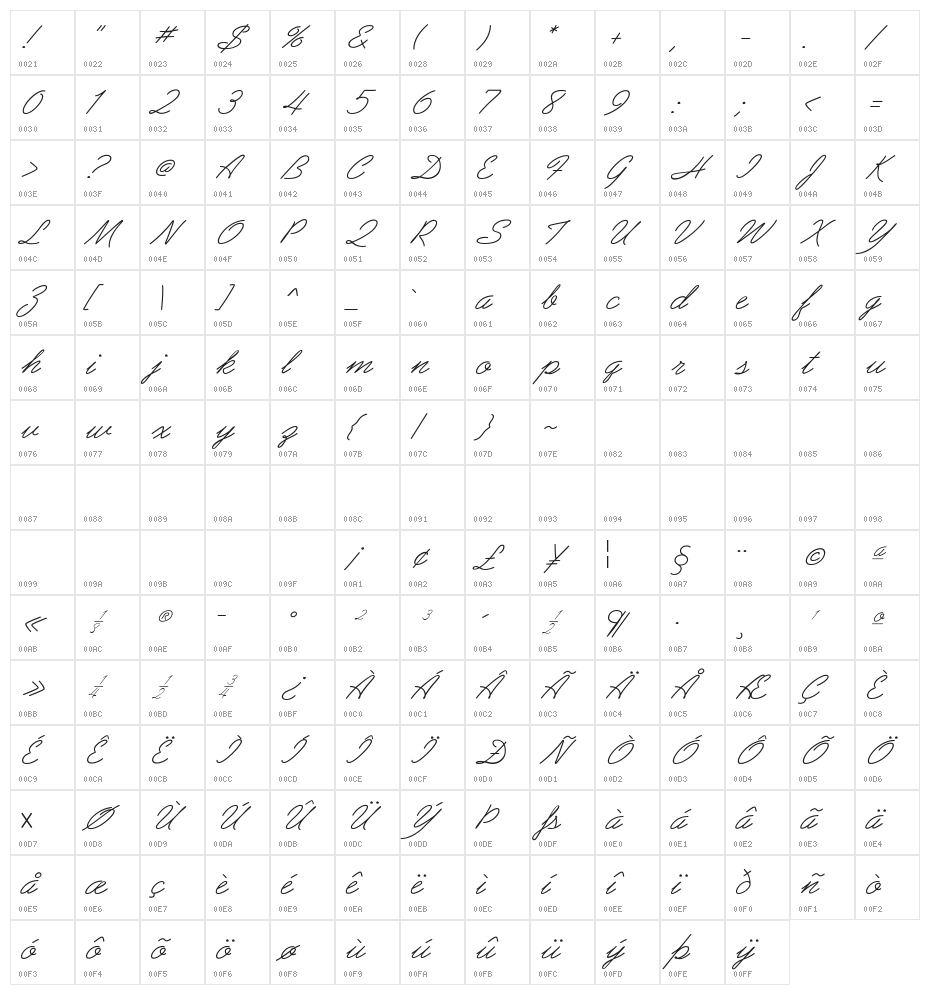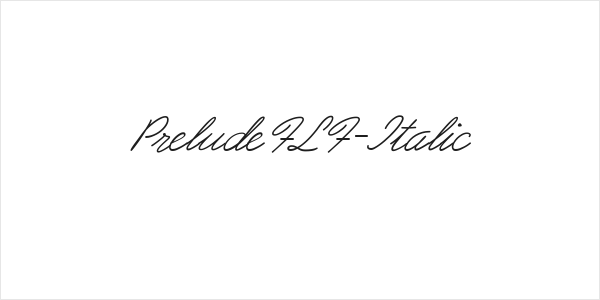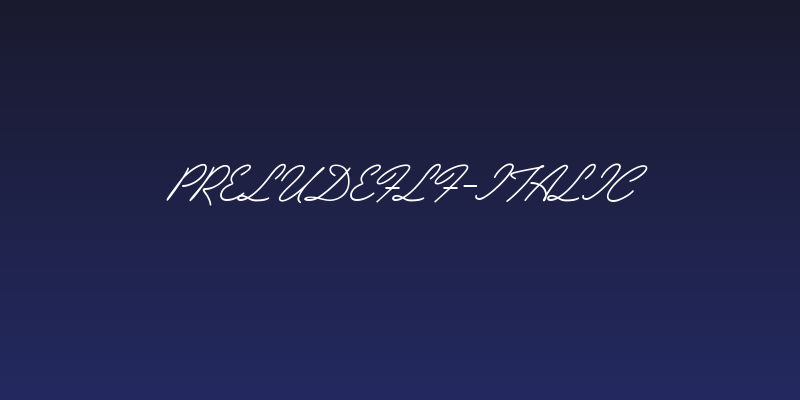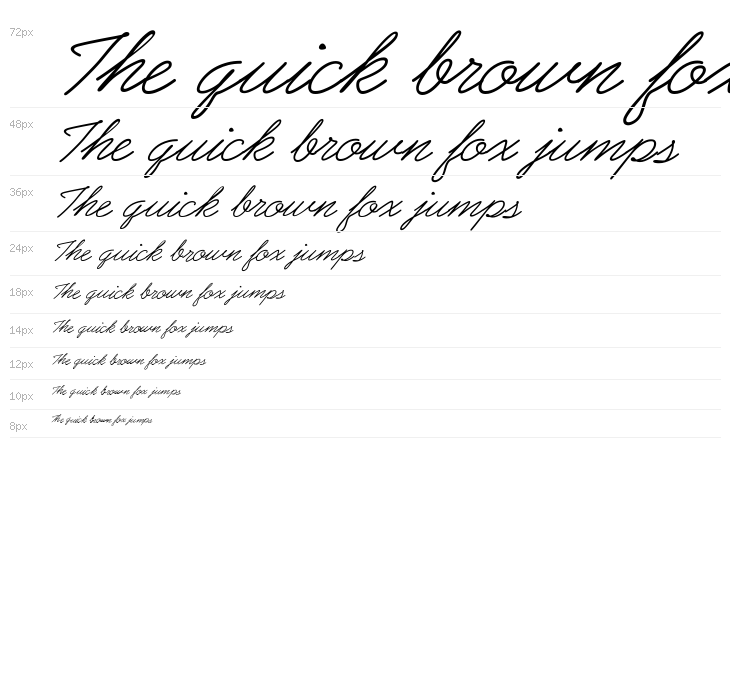
PreludeFLF-Italic Font
PreludeFLF-Italic Description
This font exhibits a flowing, cursive style with elegant, sweeping strokes that mimic the fluidity of handwritten script. The characters are connected, creating a seamless and continuous appearance that enhances readability while maintaining an artistic flair. The uppercase letters are slightly larger and more pronounced, providing a balanced contrast with the lowercase letters, which are more compact and rounded. The numerals and special characters are designed to match the overall script style, ensuring consistency throughout. This font's italic nature adds a dynamic and sophisticated touch, making it suitable for a variety of creative applications.
| Overall Style | Elegant, Artistic |
| Use Case | Headlines, Invitations, Branding |
| Proposed Projects | Ideal for wedding invitations, greeting cards, elegant branding, and personal stationery. |